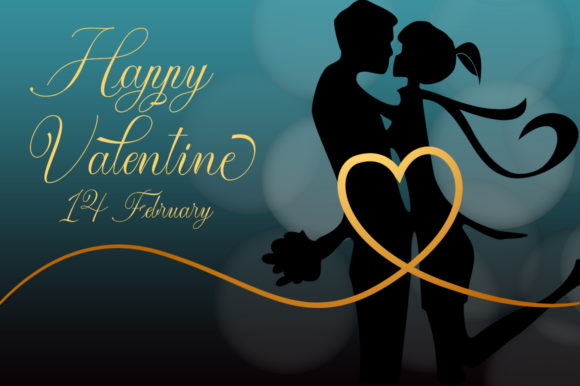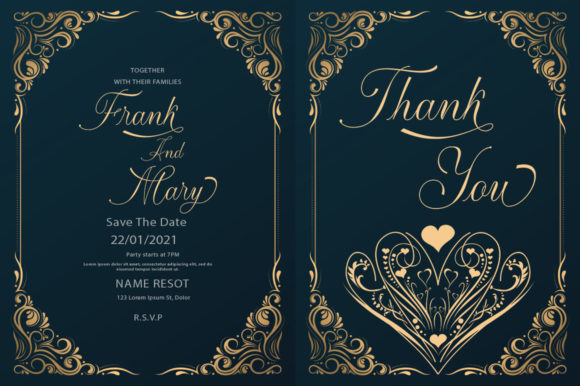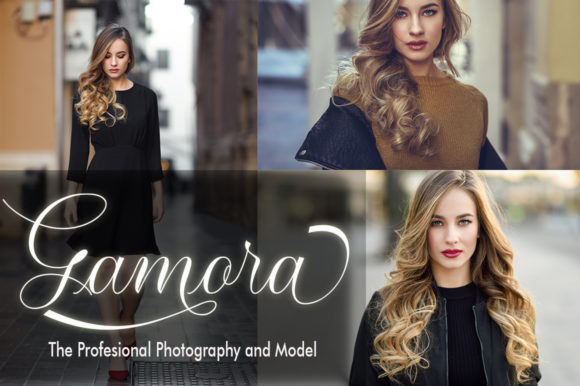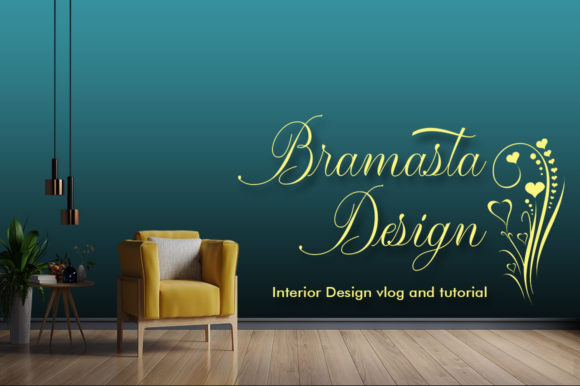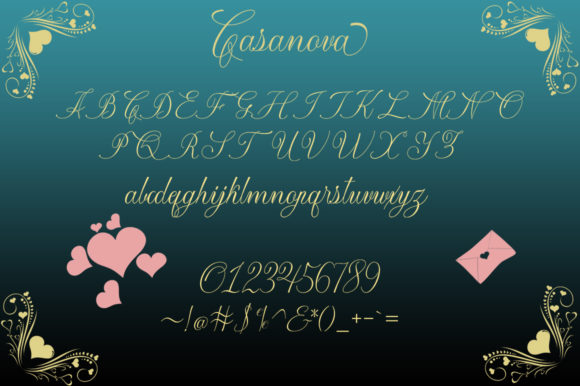
Casanova Font: Elevate Your Designs with a Touch of Elegance
Are you looking for a font that exudes charm and sophistication? Look no further than the Casanova Font, a superb handwritten font designed to add a touch of elegance to your design projects. With its beautiful, flowing script and PUA encoding, this font is perfect for designers and crafters seeking to create stunning visual content.
The Charm of Casanova Font
Casanova Font is a meticulously crafted handwritten font that boasts a charming appearance, making it ideal for a wide range of design projects. Whether you’re working on a logo, branding materials, invitations, or social media graphics, this font is sure to impress. Its elegant and refined aesthetic will add a touch of sophistication to your designs, setting them apart from the rest.
What Makes Casanova Font Special?
So, what sets Casanova Font apart from other fonts? Here are a few key features that make it a standout:
- Handwritten with love: Casanova Font is a beautifully crafted handwritten font, giving it a personal and unique touch.
- PUA encoded: This font is PUA (Private Use Area) encoded, which means you can access all the glyphs and swashes with ease. This feature makes it simple to use and customize the font to suit your design needs.
- Charming appearance: The font’s elegant and refined aesthetic makes it perfect for designs that require a touch of sophistication.
Uses for Casanova Font
Casanova Font is a versatile font that can be used for a wide range of design projects, including:
- Logos and branding: Create a lasting impression with a custom logo that showcases your brand’s personality.
- Invitations and events: Add a touch of elegance to your invitations, wedding stationery, and event materials.
- Social media graphics: Elevate your social media presence with eye-catching graphics that feature the Casanova Font.
- Packaging and product design: Use the font to create beautiful packaging and product designs that stand out on store shelves.
Tips for Using Casanova Font
To get the most out of Casanova Font, here are a few tips to keep in mind:
- Experiment with sizes and colors: Play around with different font sizes and colors to find the perfect combination for your design.
- Pair with complementary fonts: Combine Casanova Font with complementary fonts to create a unique and visually appealing design.
- Use swashes and glyphs: Take advantage of the font’s PUA encoding to access a range of swashes and glyphs that can add an extra touch of elegance to your design.
In conclusion, Casanova Font is a superb handwritten font that offers a charming appearance and a range of design possibilities. With its PUA encoding and elegant aesthetic, it’s perfect for designers and crafters seeking to create stunning visual content. Whether you’re working on a logo, invitation, or social media graphic, Casanova Font is sure to elevate your design and leave a lasting impression.